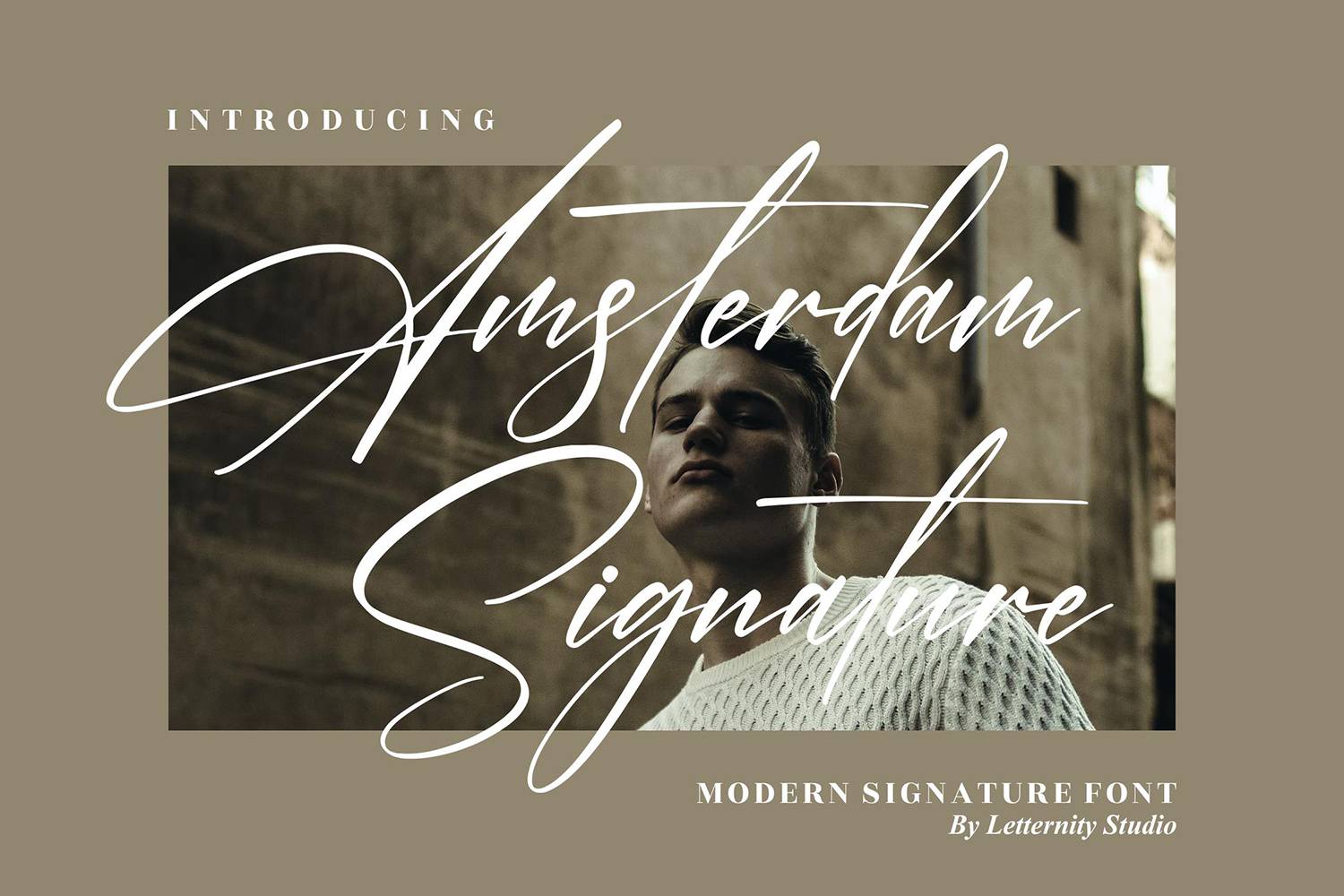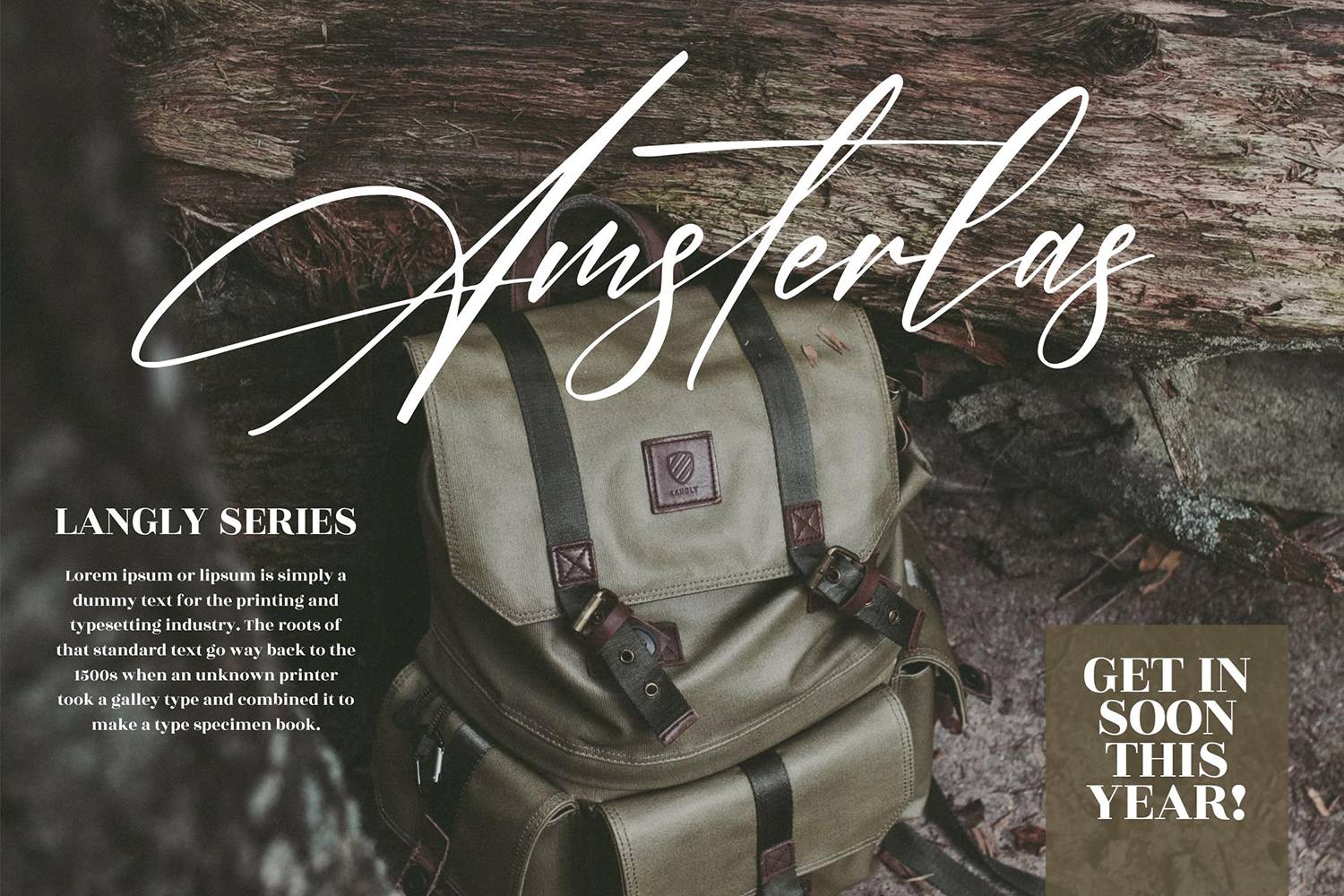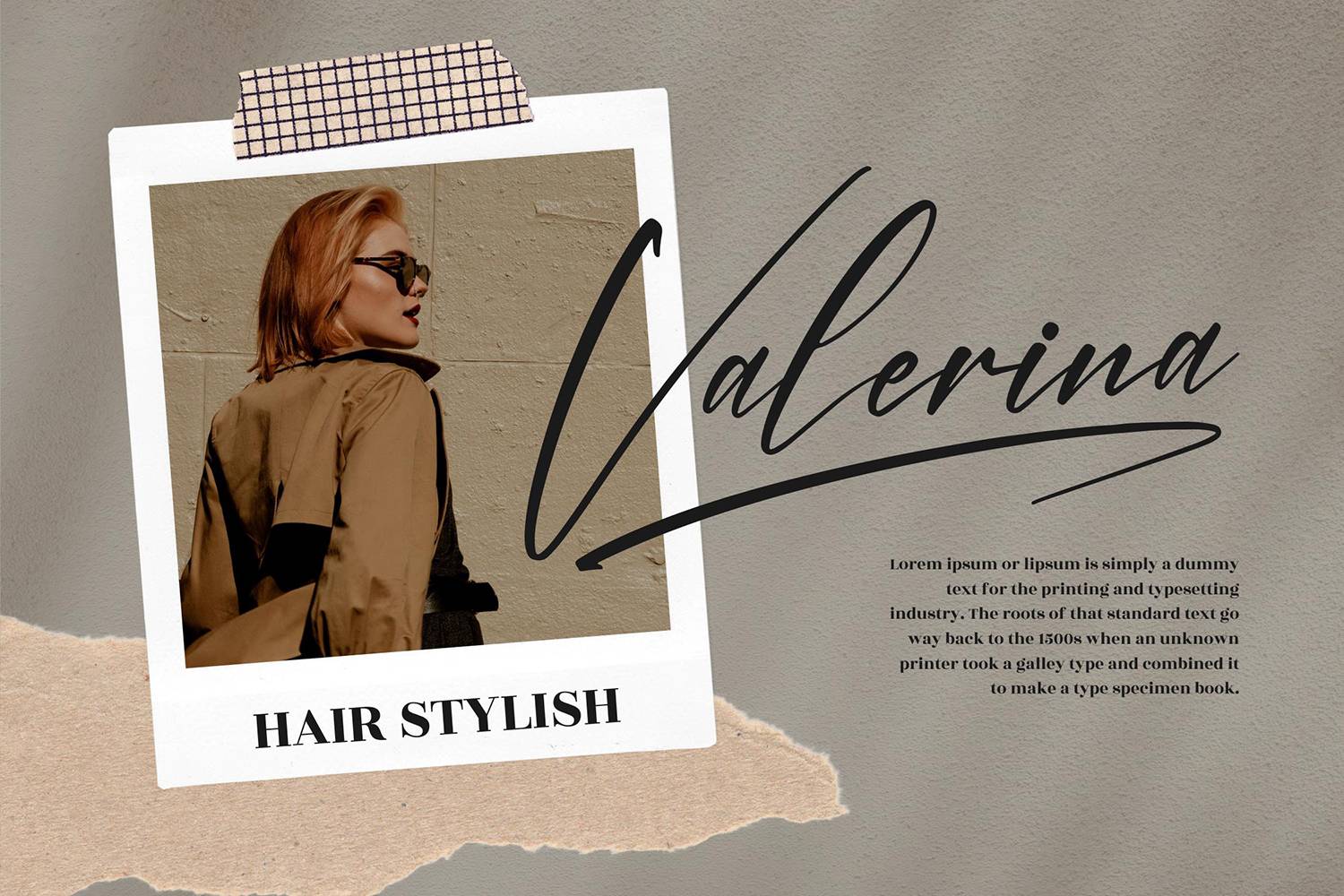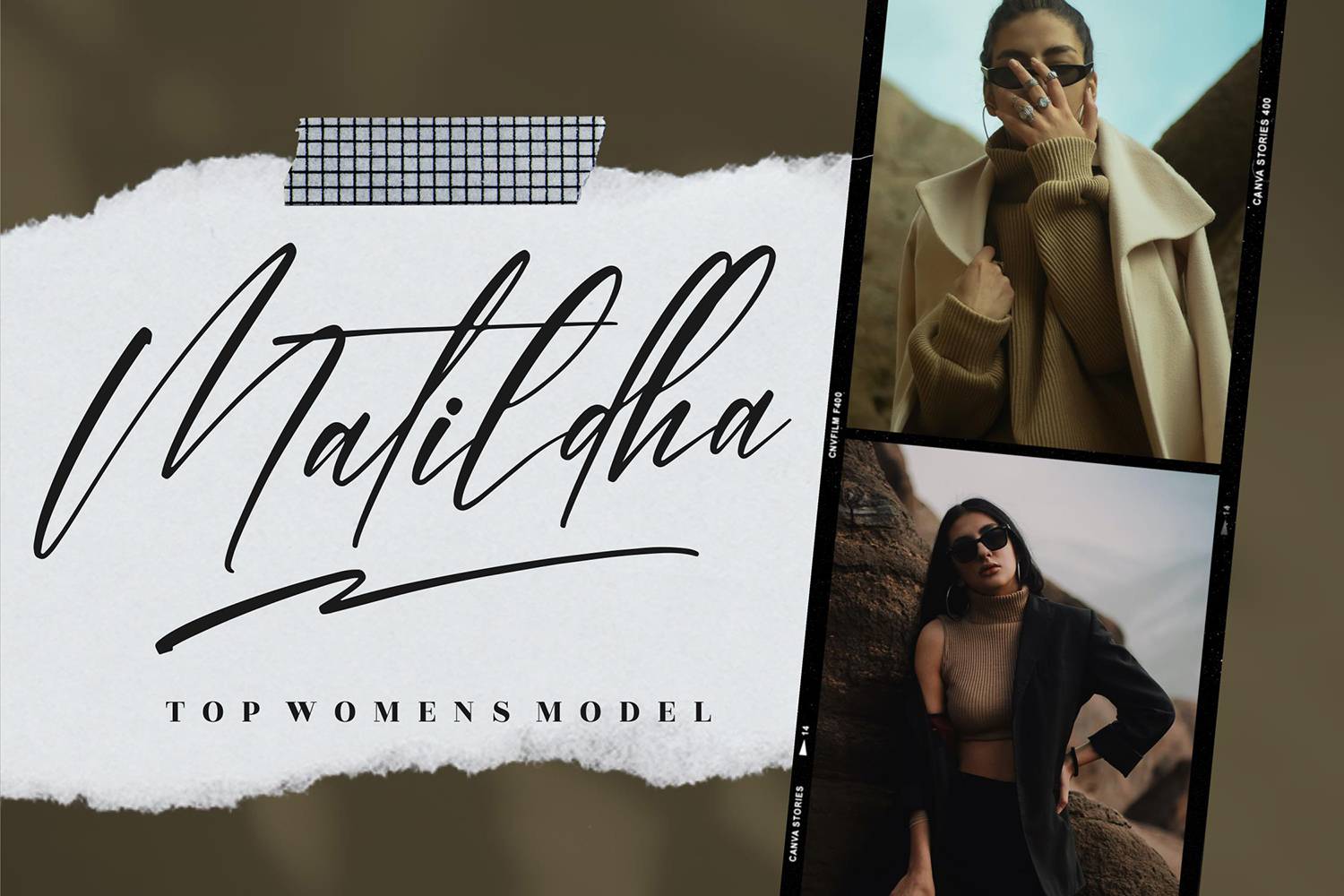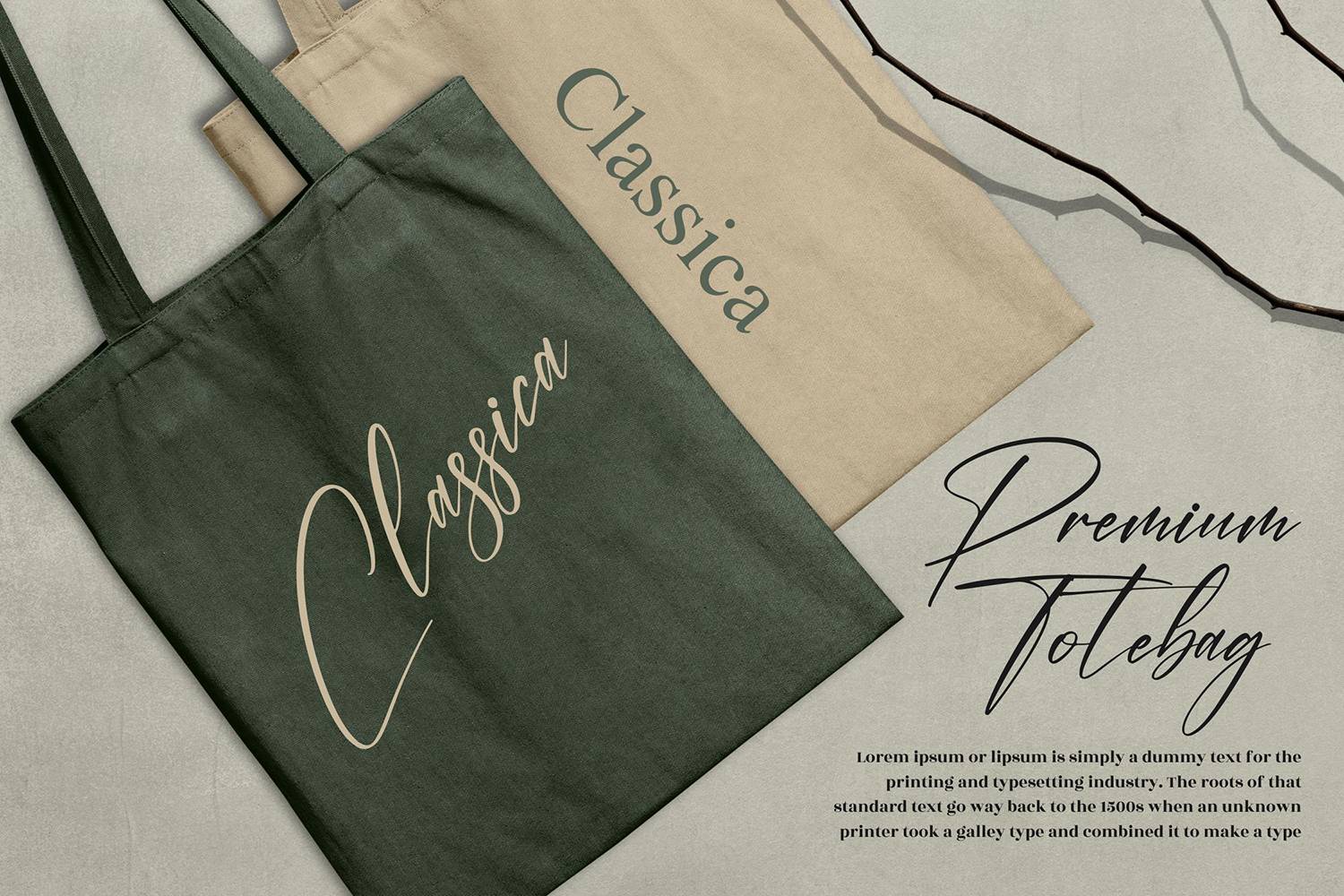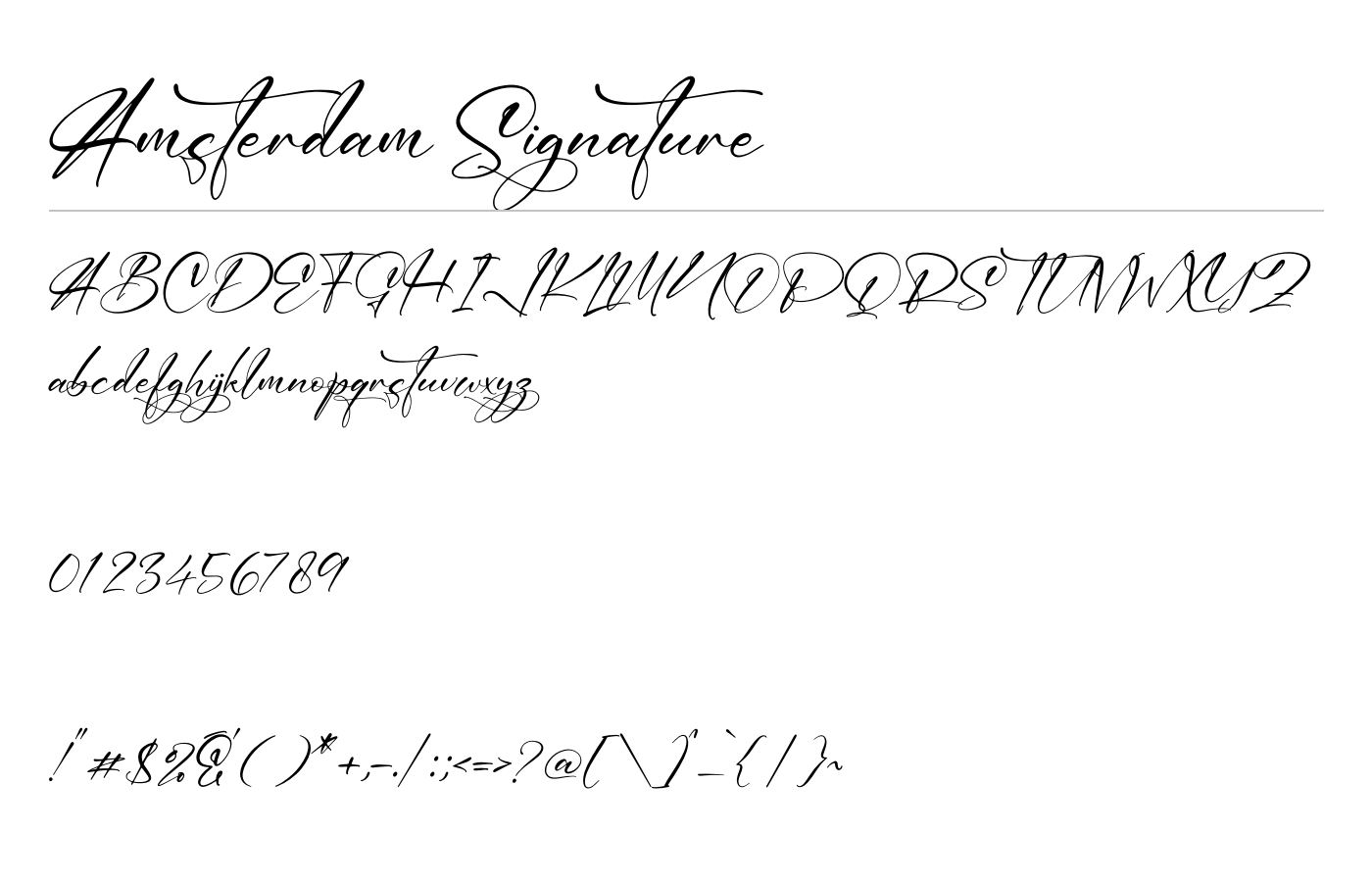
Amsterdam Signature is a delicate, elegant script font with flowing, calligraphic strokes that mimic natural handwriting. Its thin, graceful lines and decorative swashes make it perfect for adding a luxurious, personal touch to branding, wedding invitations, and upscale packaging, conveying sophistication and charm.
Amsterdam Signature Font
About Amsterdam Signature Font